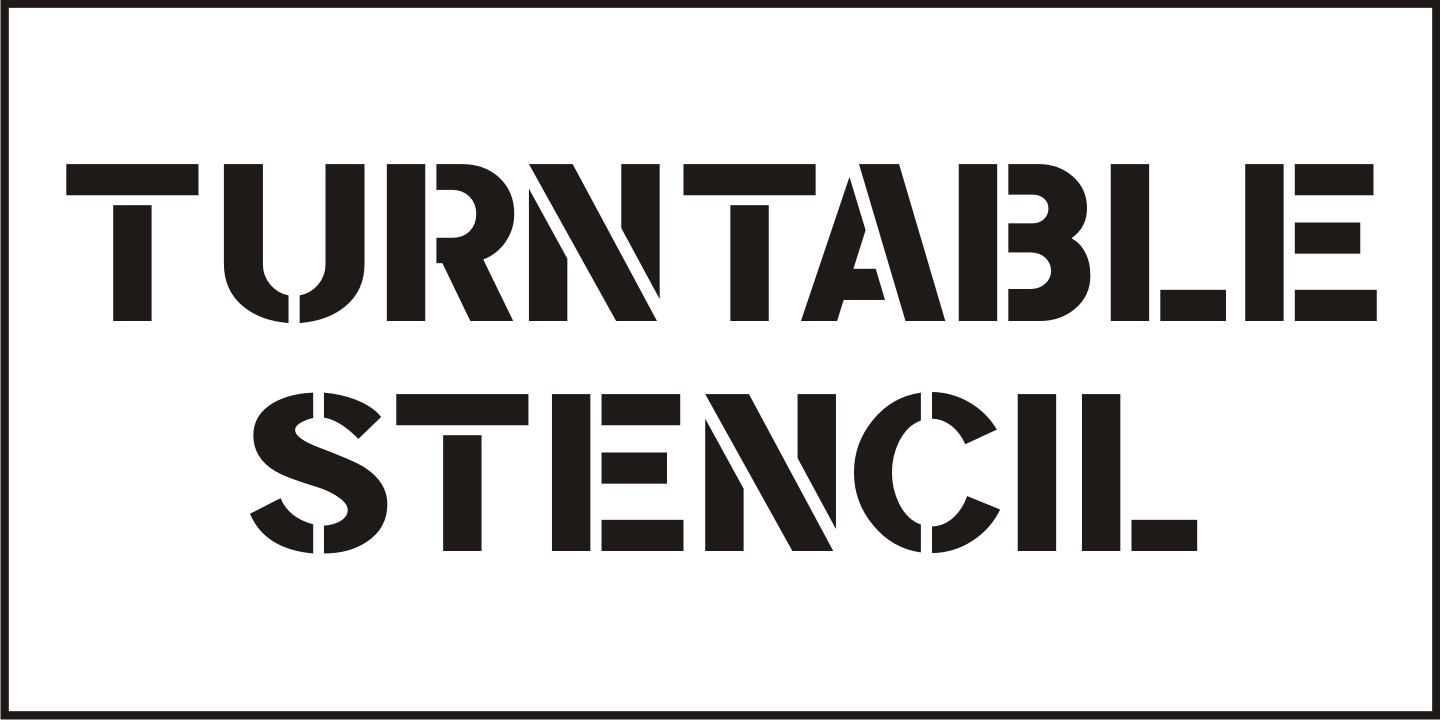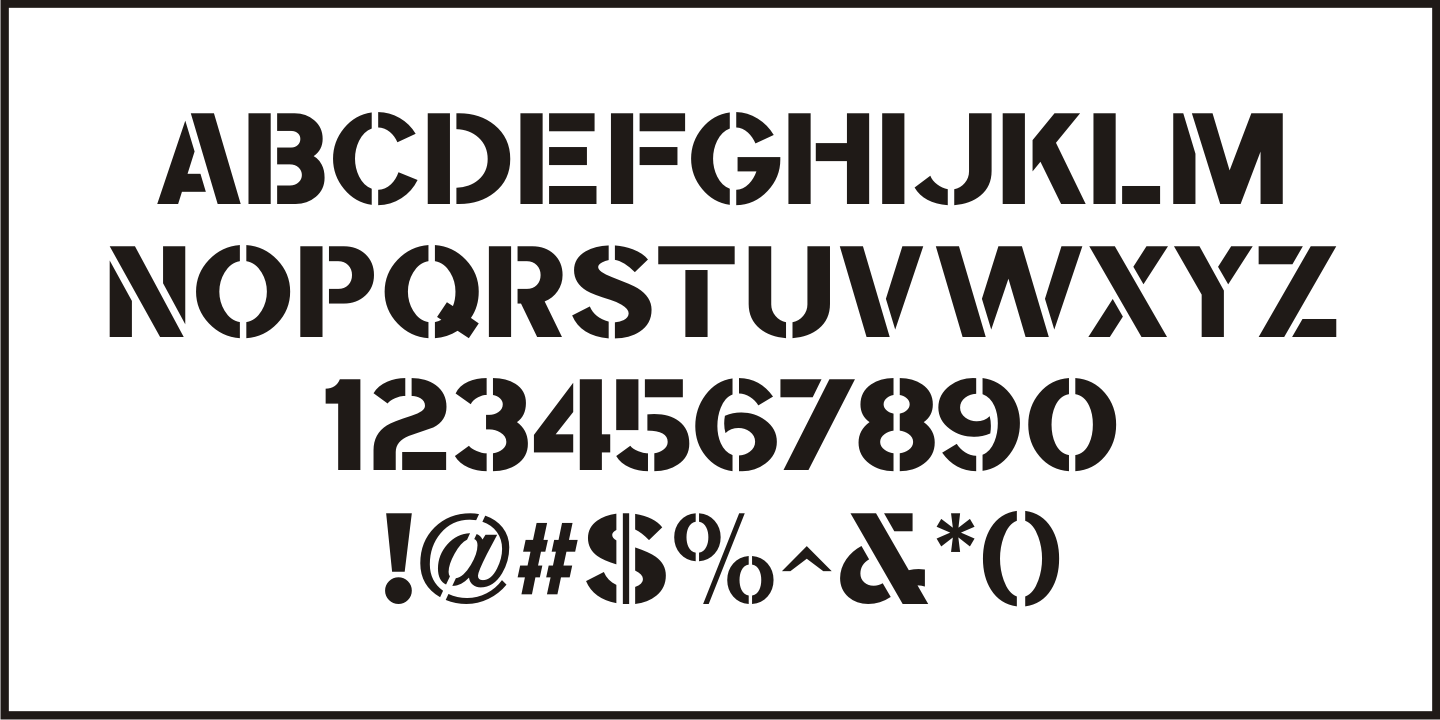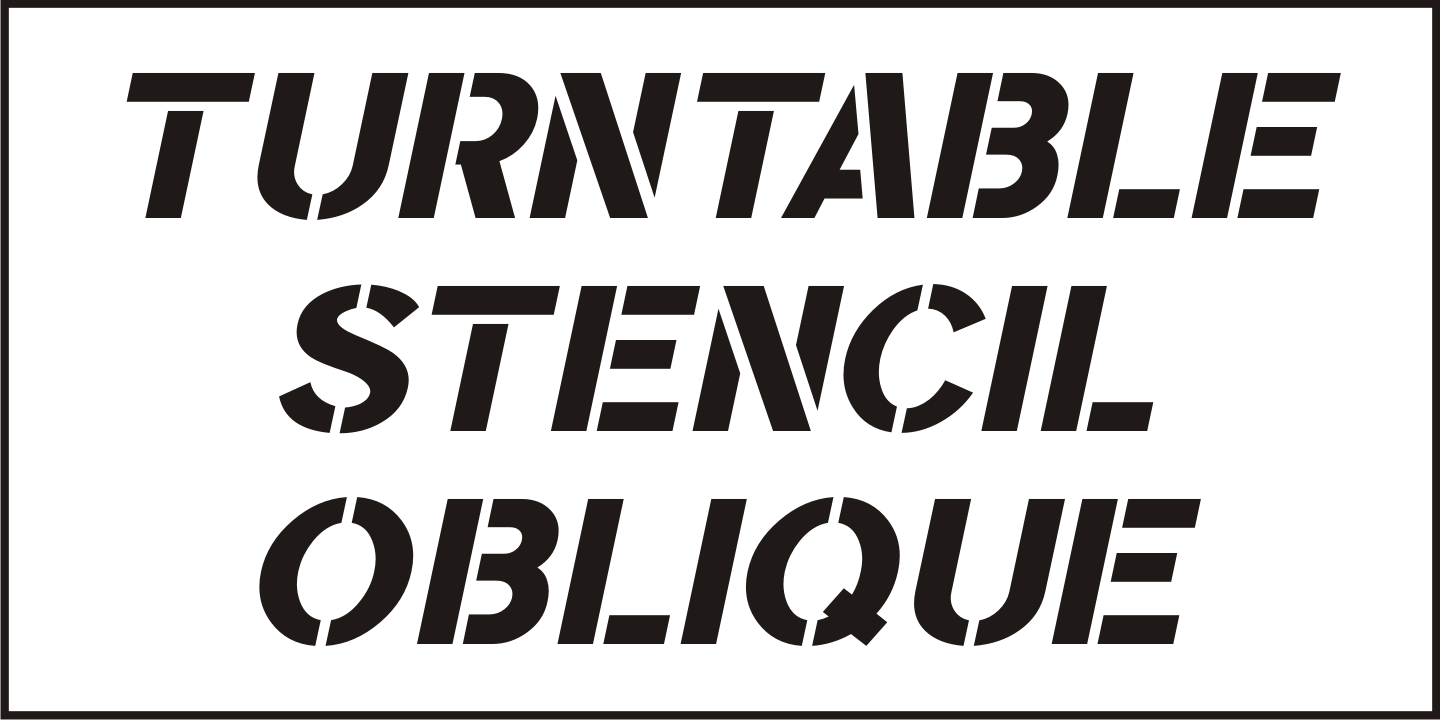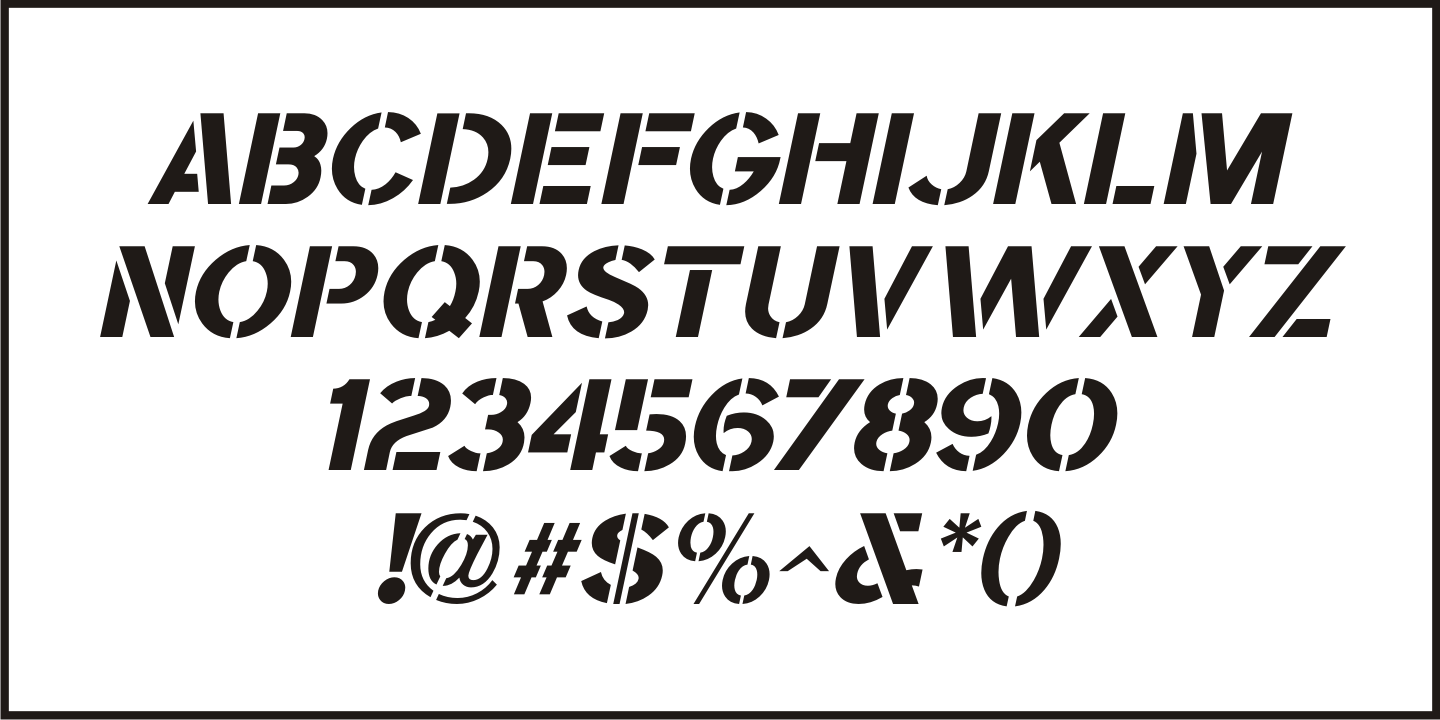
Turntable Stencil
A disc jockey-only promotional sleeve for a 1964 [45 rpm] release of “Close to Me” and “Let Them Talk” by Dan Penn featured the song titles printed in a stencil typeface on the record sleeve. Closely resembling a stencil version of Franklin Gothic but with its own unique characteristics, this design has been reinterpreted as Turntable Stencil JNL and is available in both regular and oblique versions. For trivia buffs, Dan Penn is a singer-songwriter-record producer, often collaborating with Dewey Lindon “Spooner” Oldham; both closely associated with the late Rick Hall’s Fame recording studios in Muscle Shoals, Alabama. In 1964, Hall started the Fame record label, and for a time it was distributed by Vee-Jay Records of Chicago, the first major Black-owned record label in the United States. Penn’s release was only the second for the new label; Fame 6402.